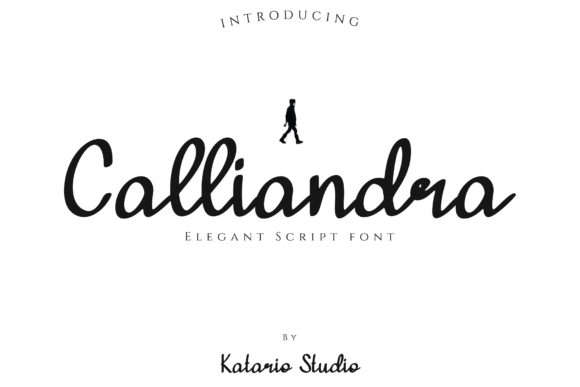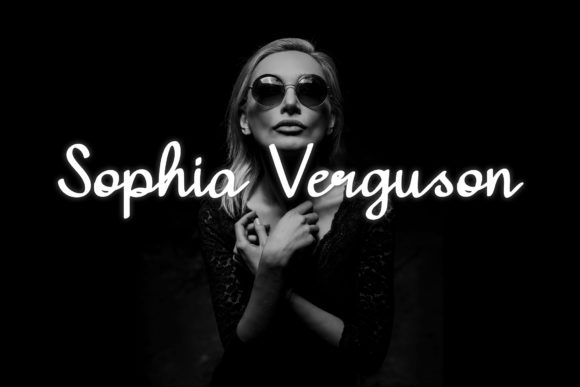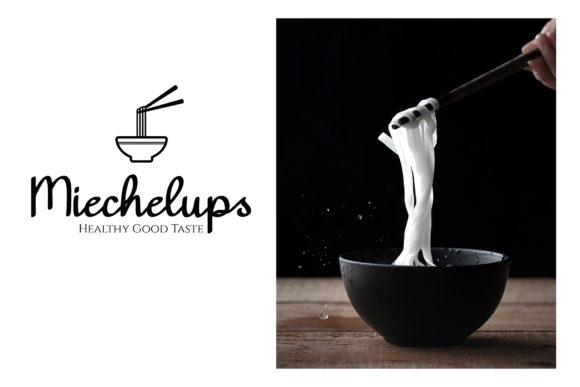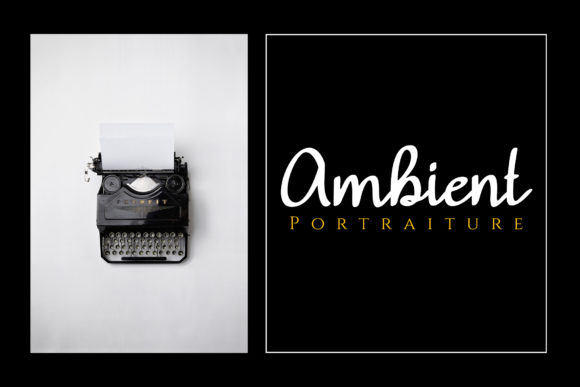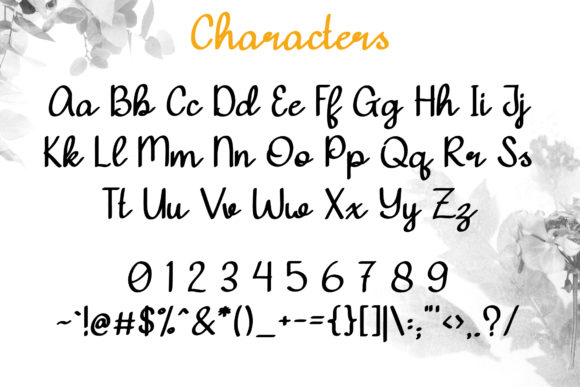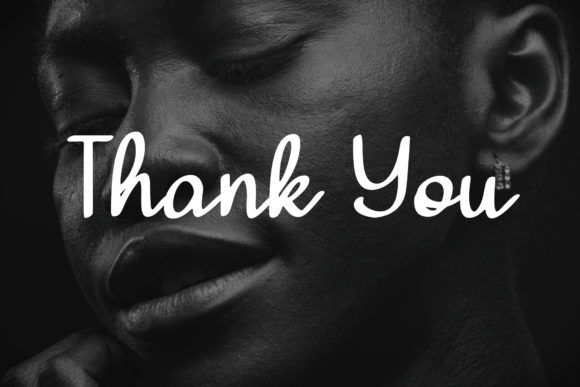
Calliandra Font
About Calliandra Font
Calliandra is a elegant and modern handwritten font. It’s perfect for wedding invitations, posters, branding and much more!